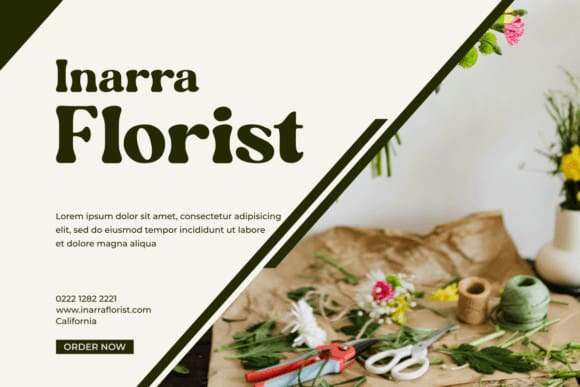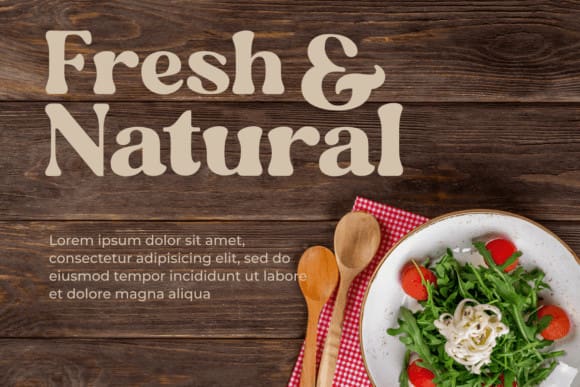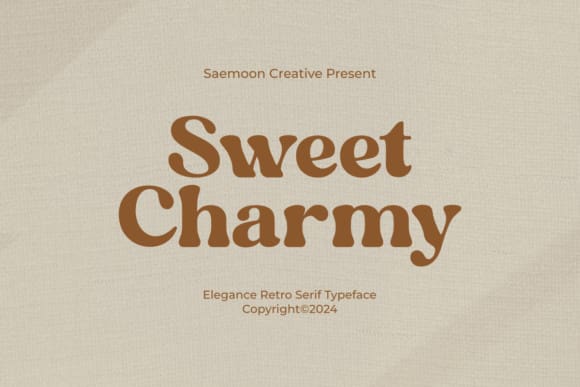
Sweet Charmy Font
Sweet Charmy Font is a remarkably refined Retro Serif font. Its exquisite nuances and smooth curves work in harmony, generating a captivating vintage allure that is equally sophisticated and plush. Perfectly suited for a diverse bouquet of design applications – from logos to branding, invitations to imaginative projects, Sweet Charmy carefully balances the nostalgia associated with yesteryears with current style sensibilities.
Each character within Sweet Charmy is meticulously constructed with a keen eye for proportion and equilibrium, manifesting in a visually pleasing harmony. The font’s defining features are its firm yet mellow lines coupled with distinct decorative ornamentation that contributes toward an irresistible and nostalgic charm. SweetCharmy allows your designs to sparkle with the timeless beauty and elegance from a different era, tastefully revived with modern accuracy and flair.
More than simply stylizing your text, Sweet Charmy infuses every letter with a sense of history and depth, allowing your project to tell a resonating story. This attention-grabbing font epitomizes the balance of age-old elegance and modern precision, making it a standout addition to any designer’s toolkit. With Sweet Charmy, inviting a dash of charm and character into your designs has never been more seamless.